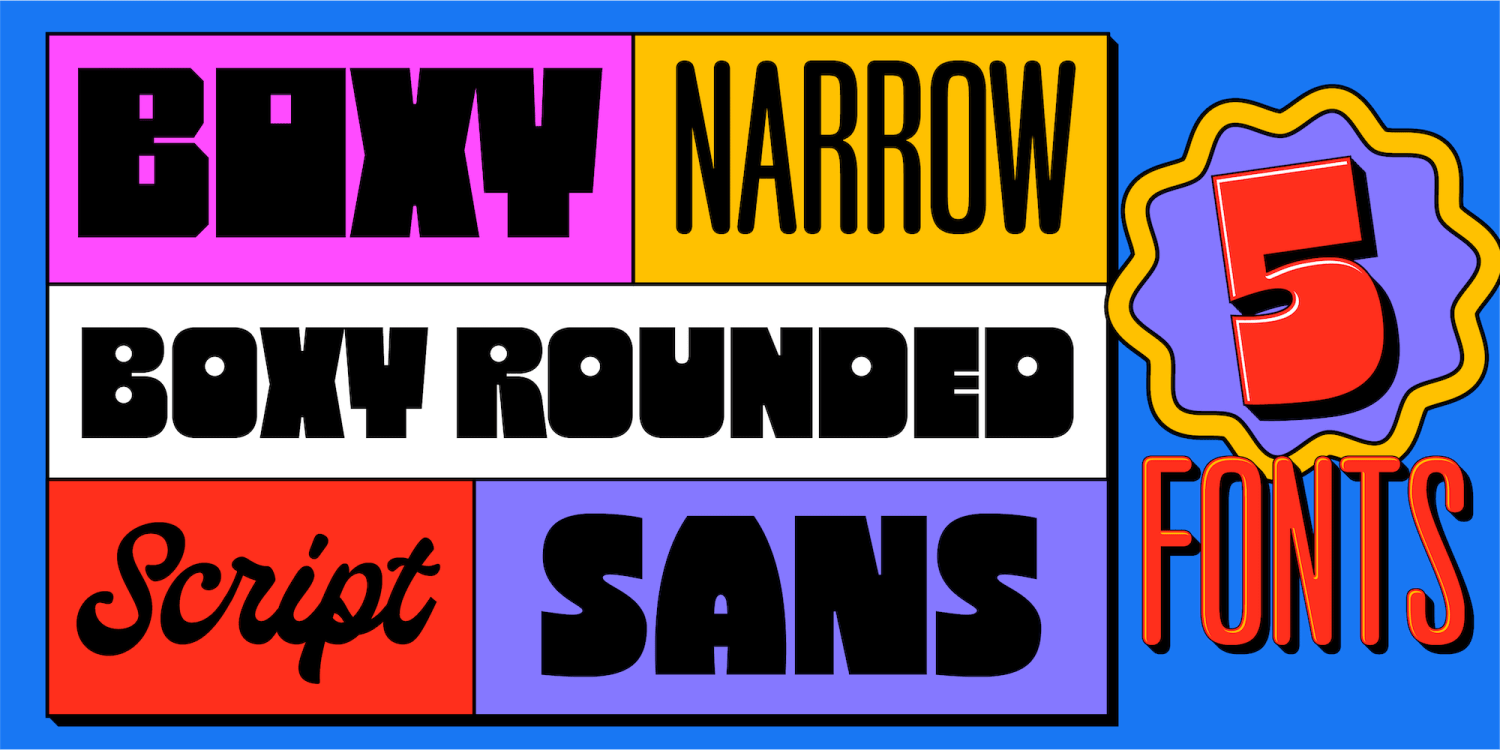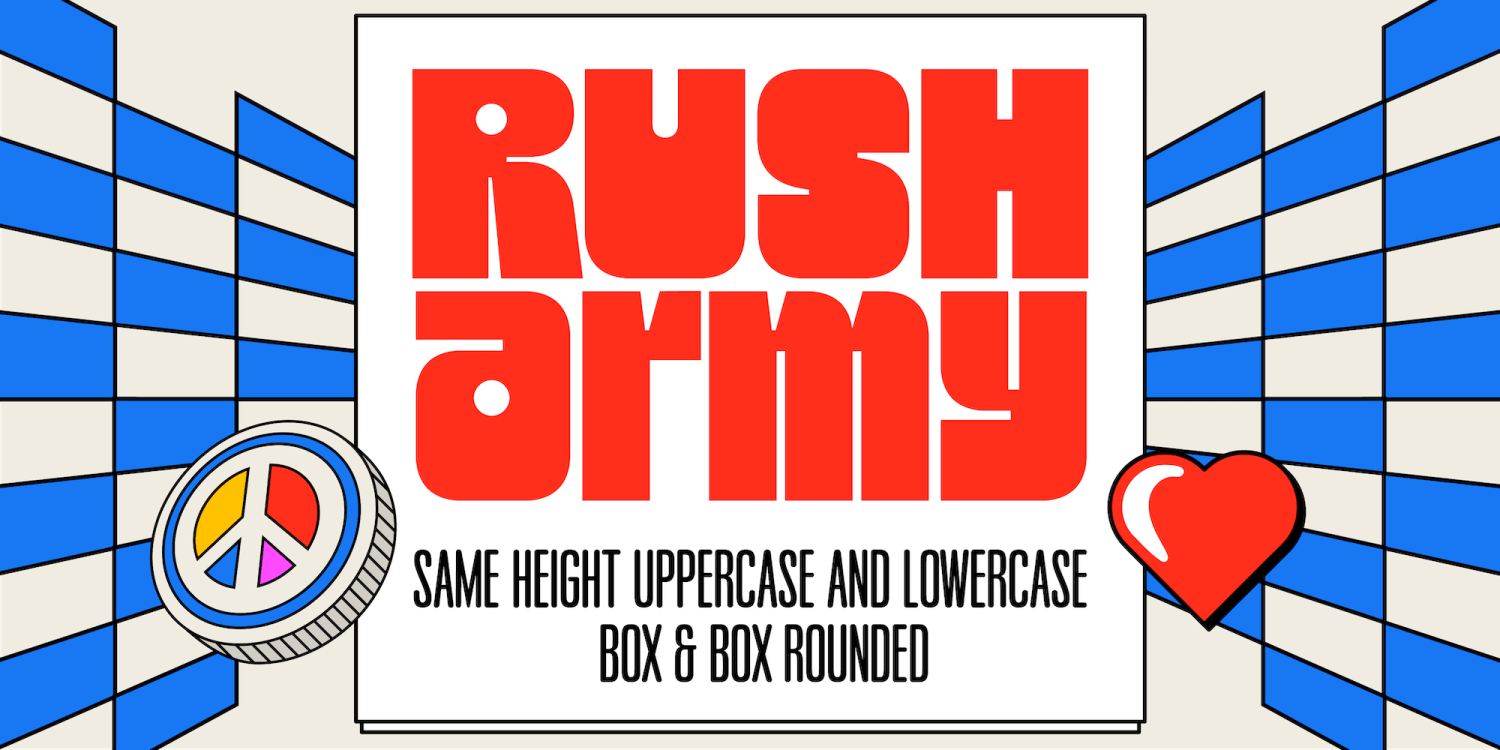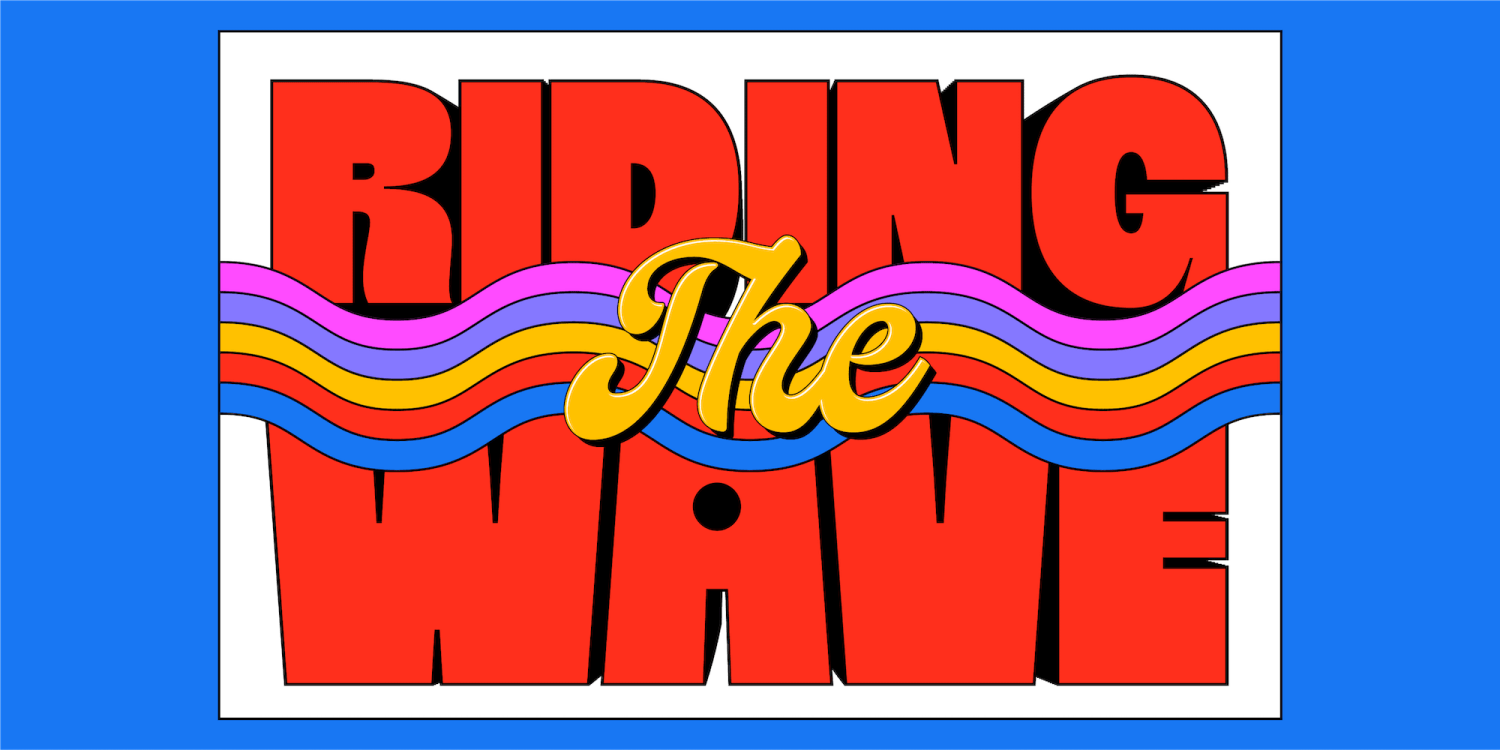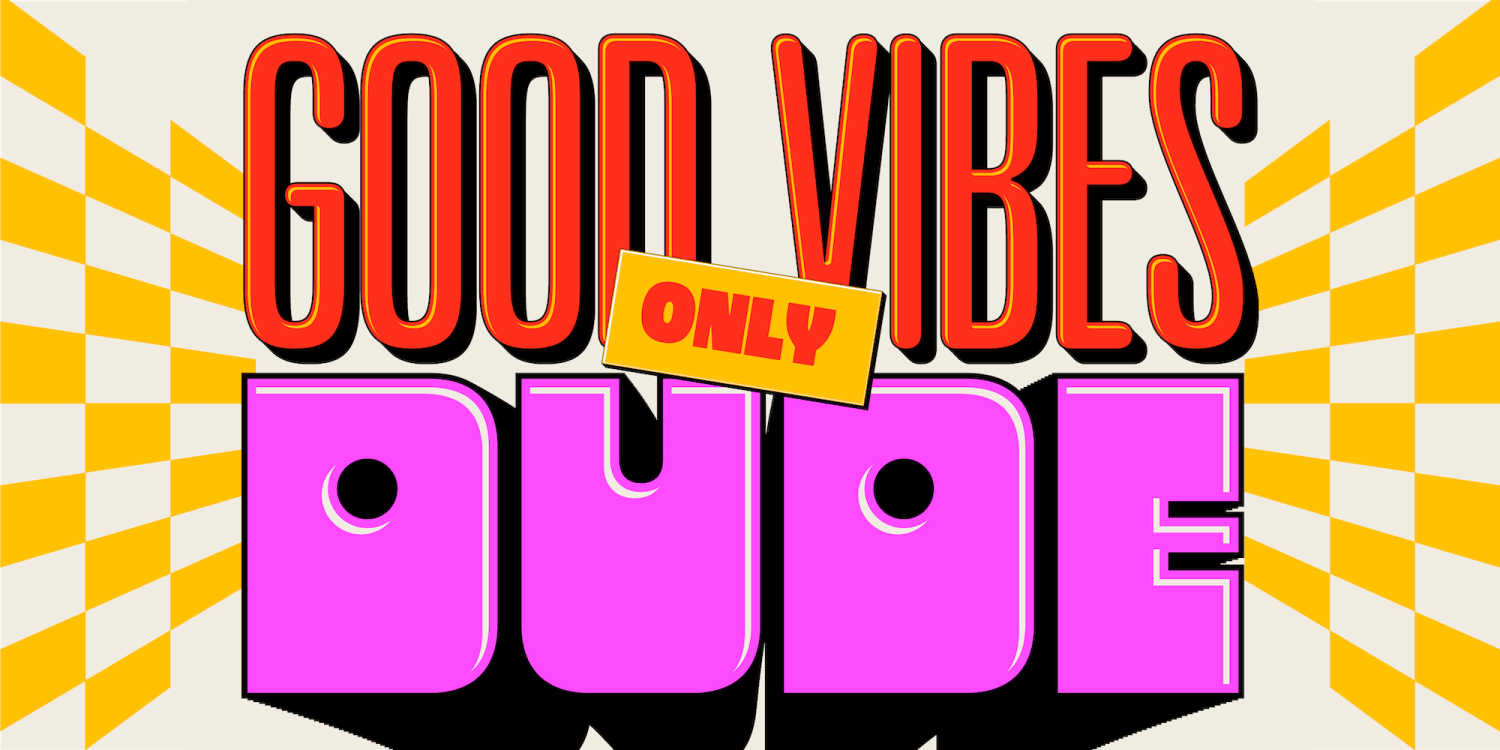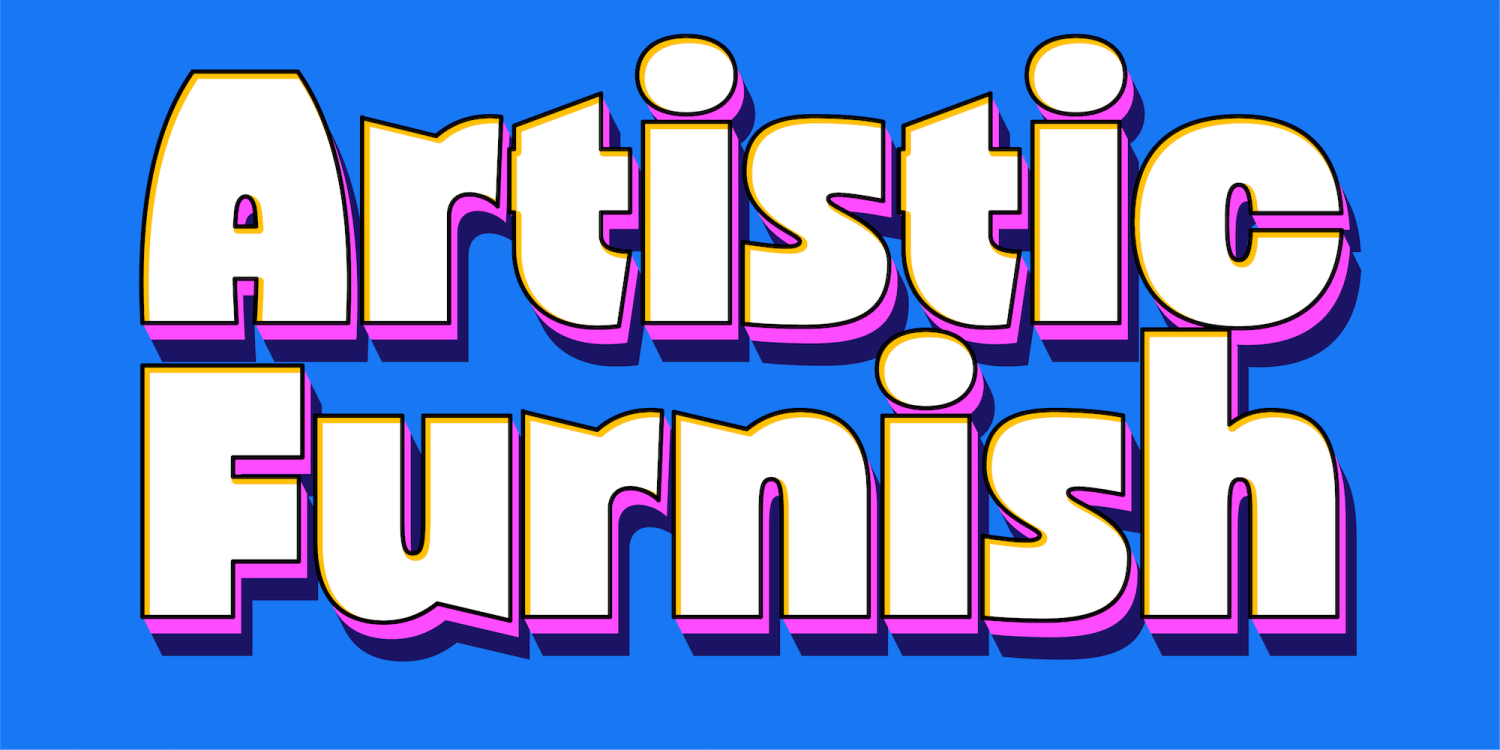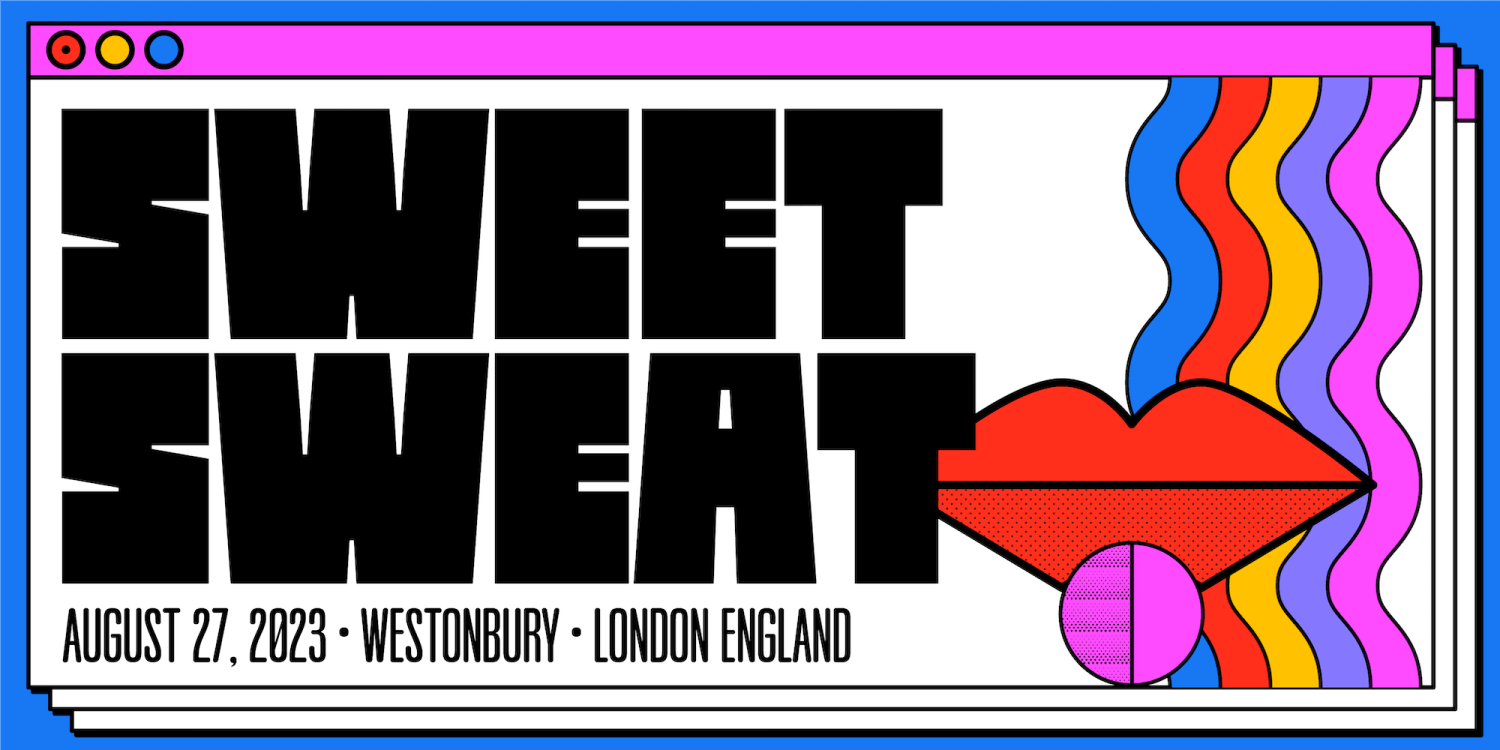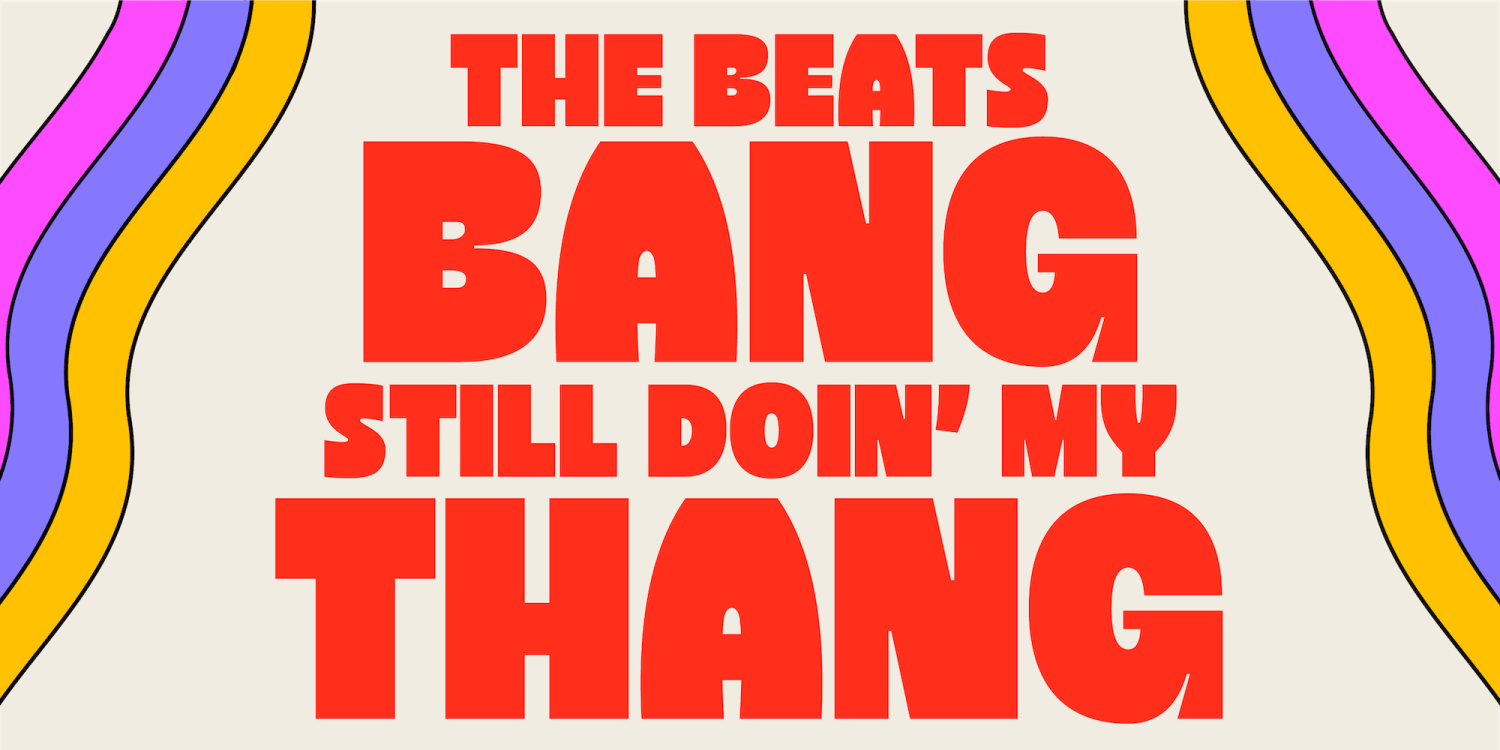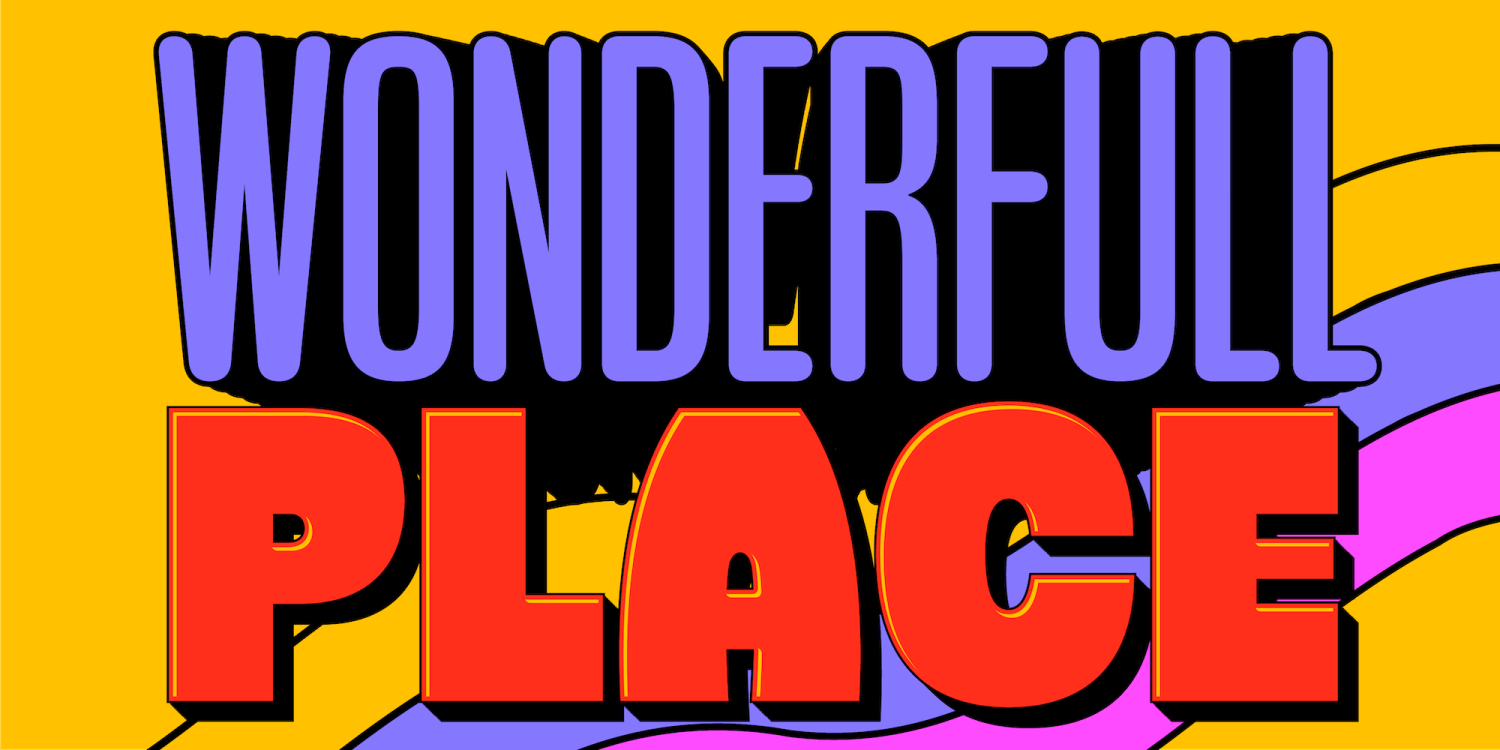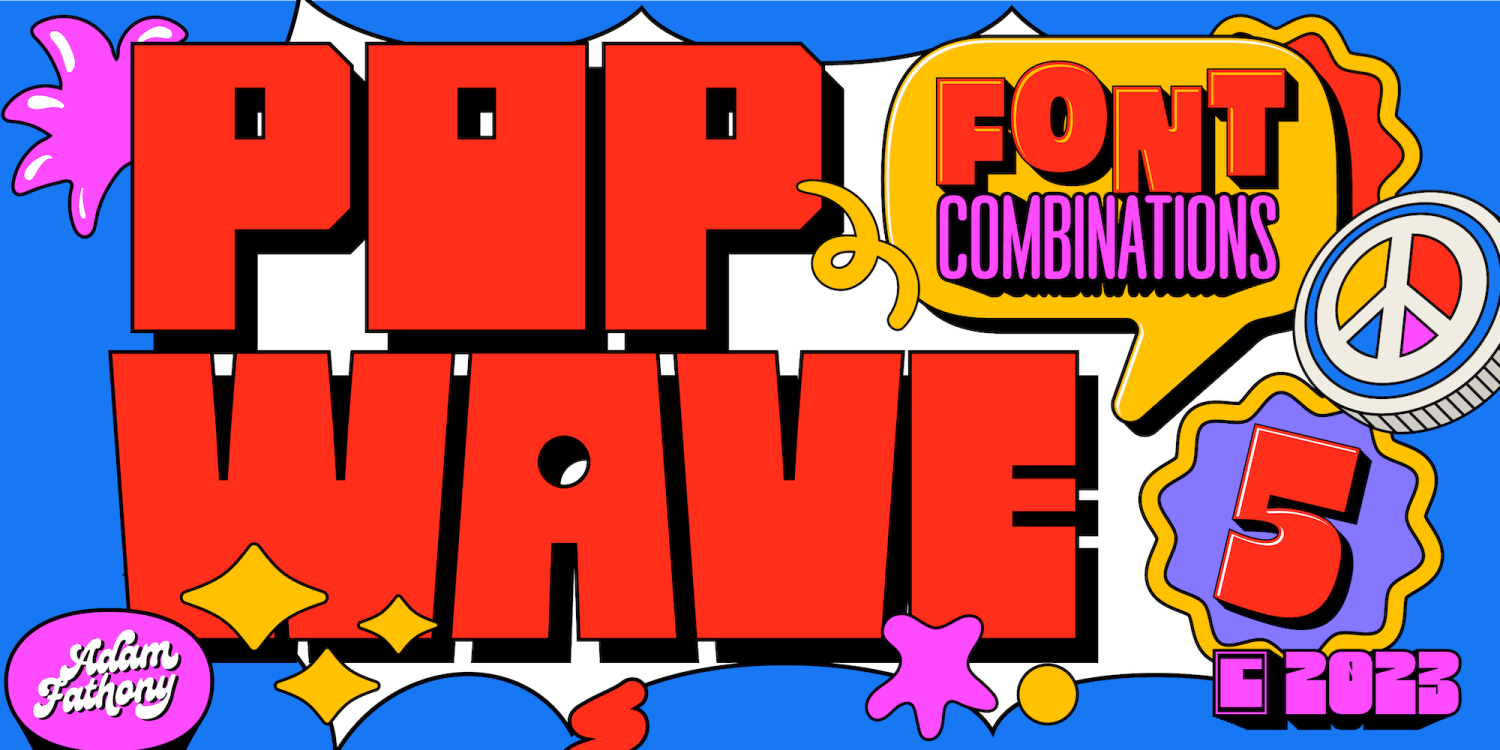
Popwave Font Collection
Popwave – a vibrant and playful font pack containing 5 unique fonts that are perfect for adding a touch of modern pop and groovy style to your designs. This versatile font pack includes a Boxy, a Boxy Rounded, a Script, a Narrow, and a Pop Sans. providing…